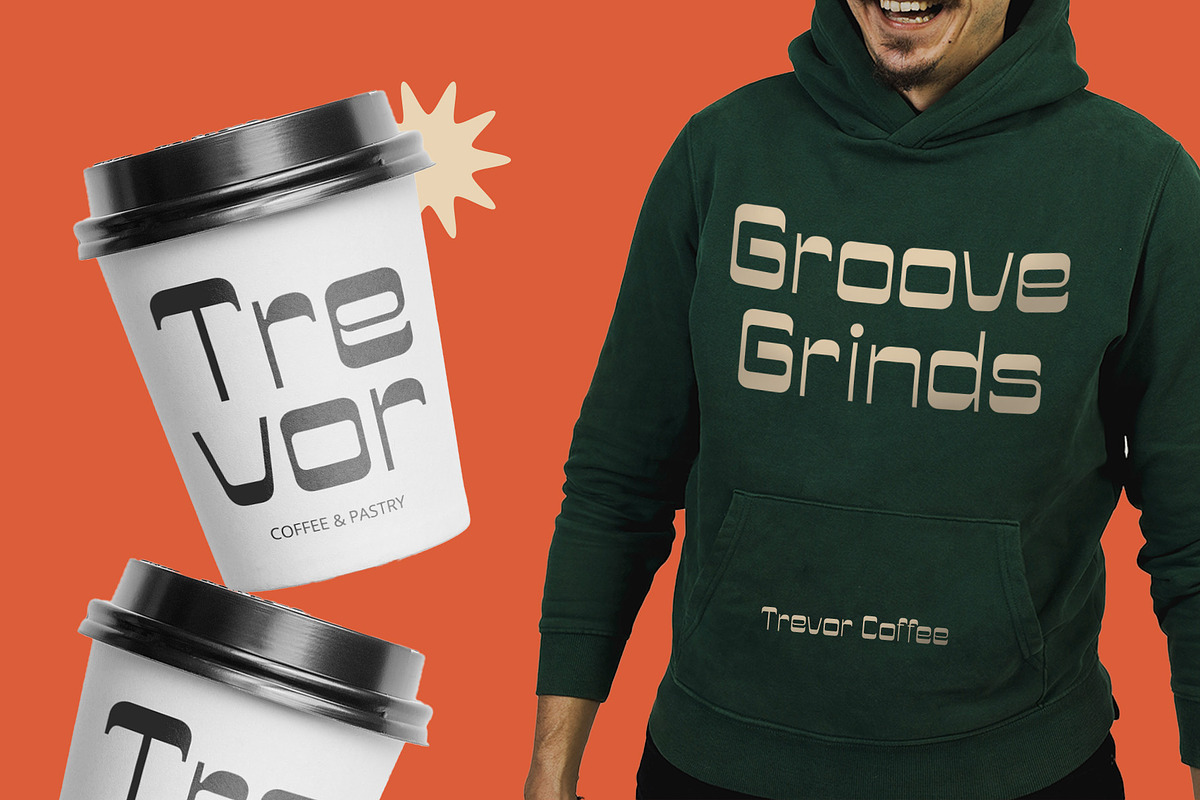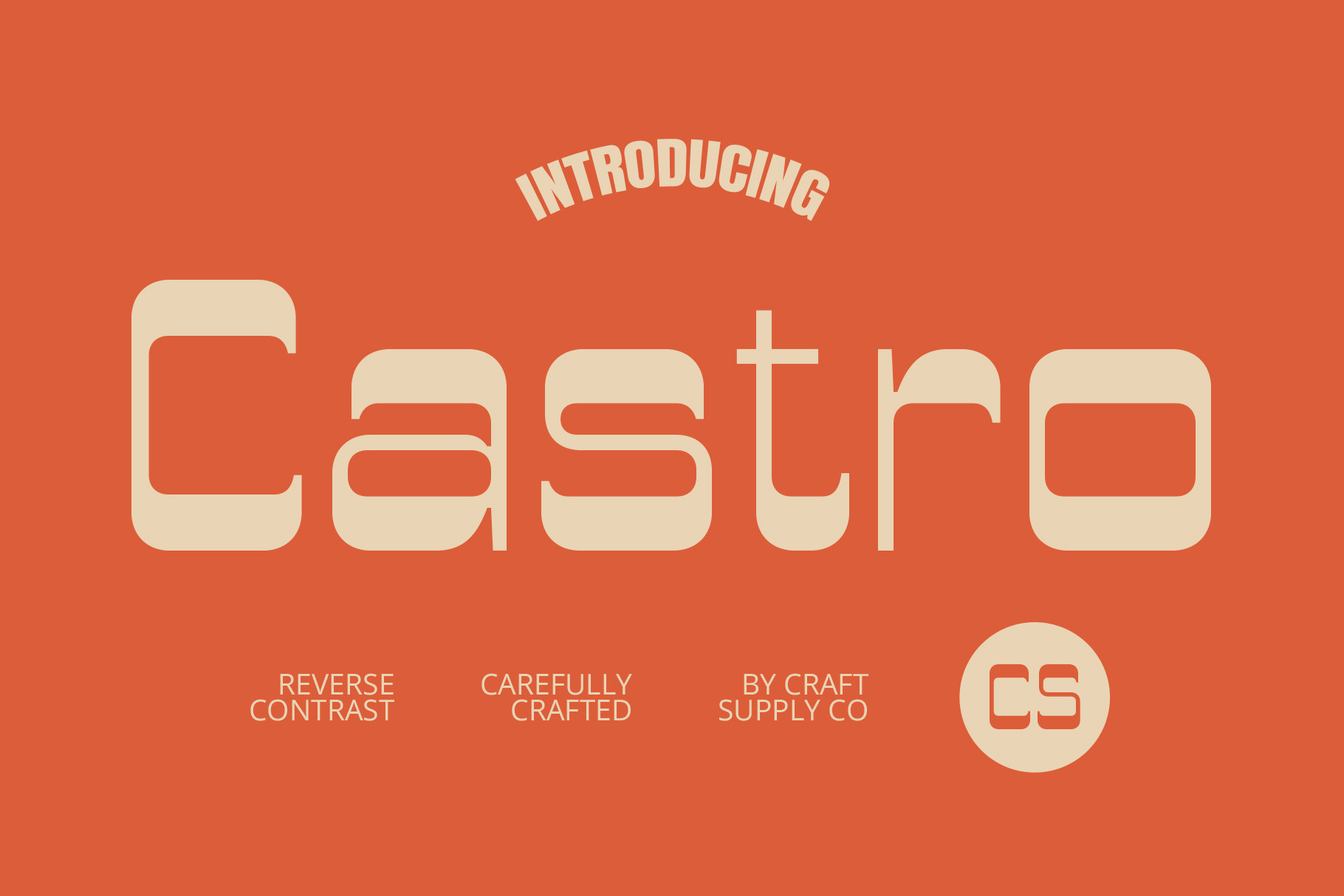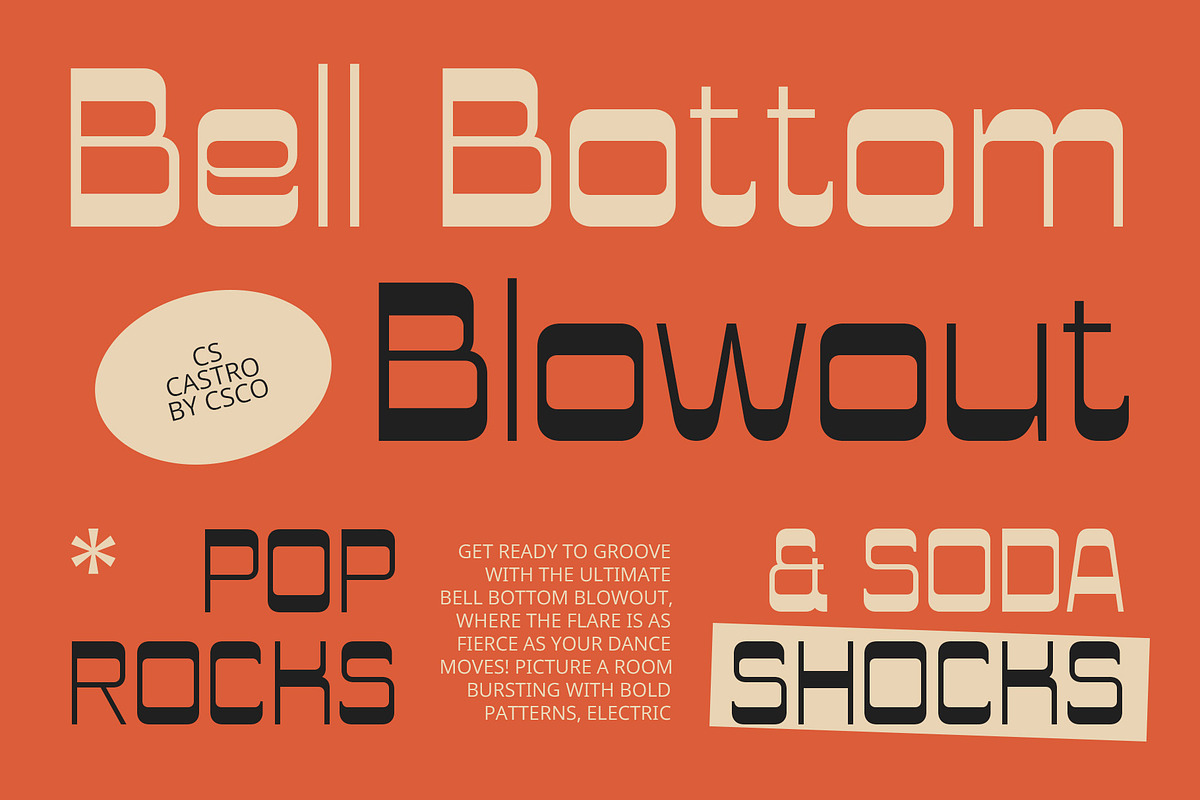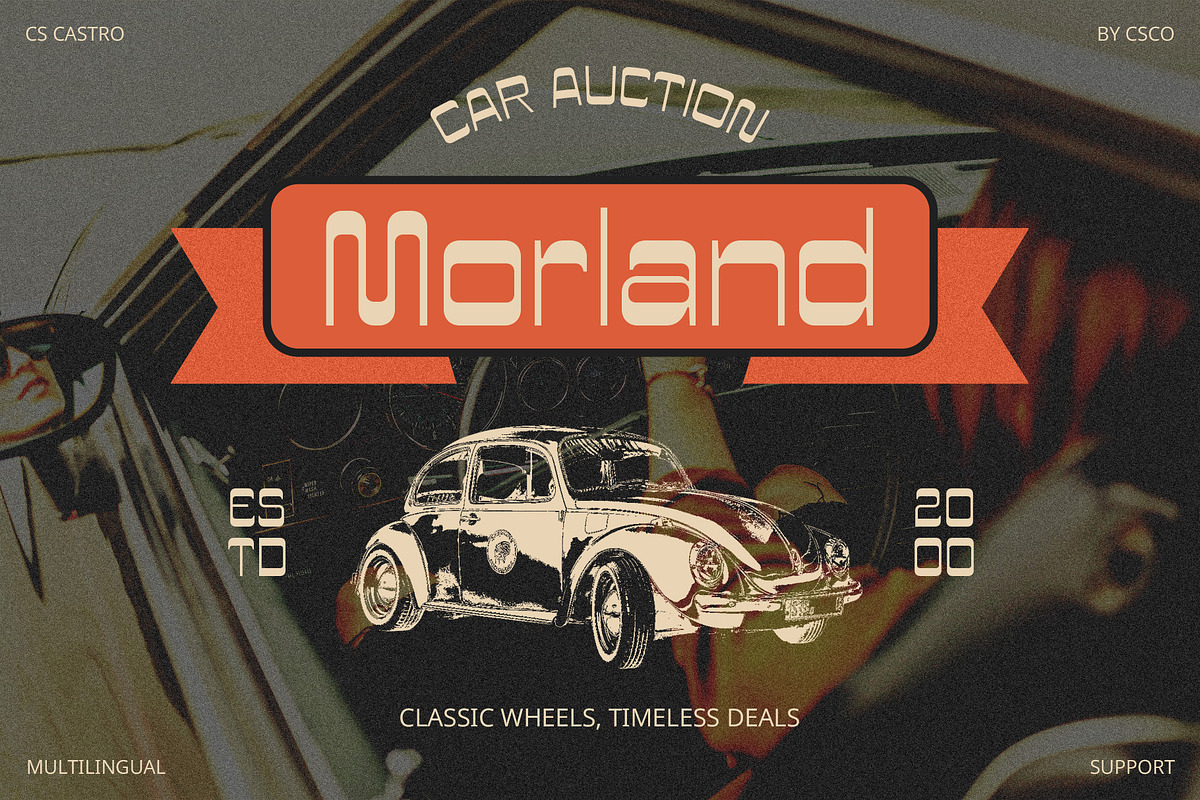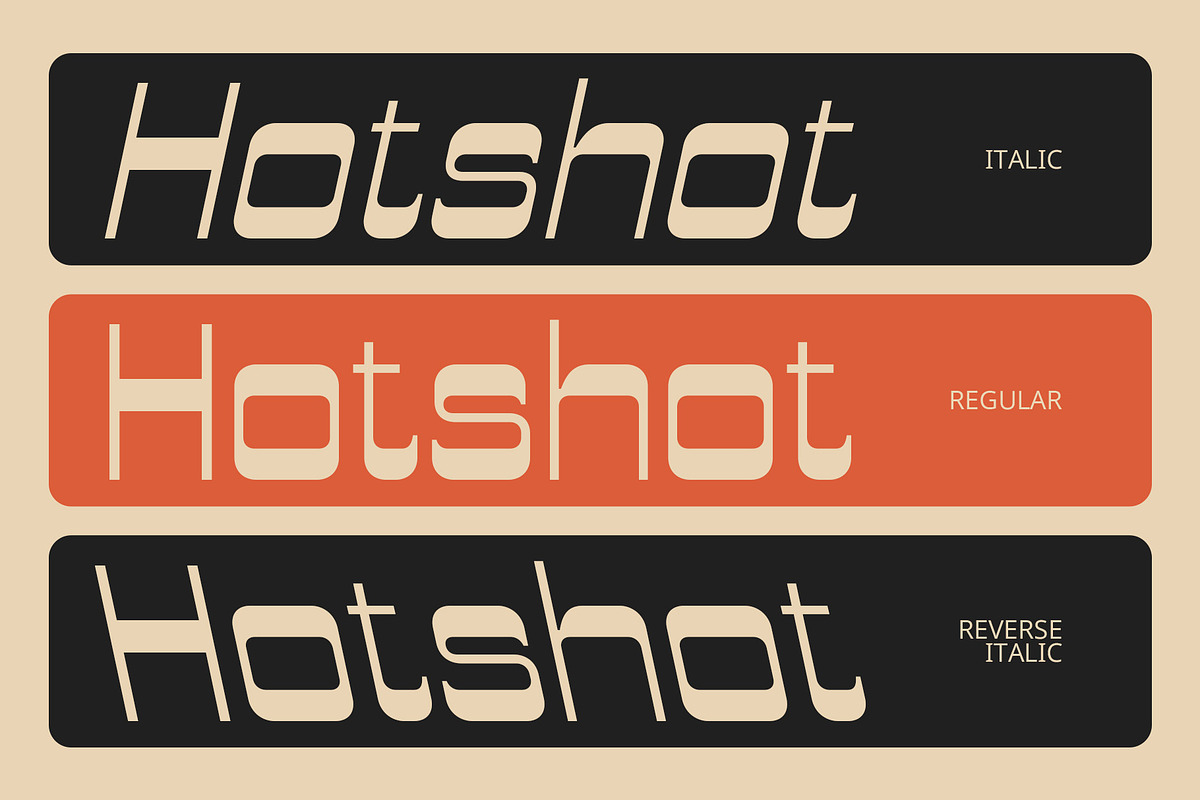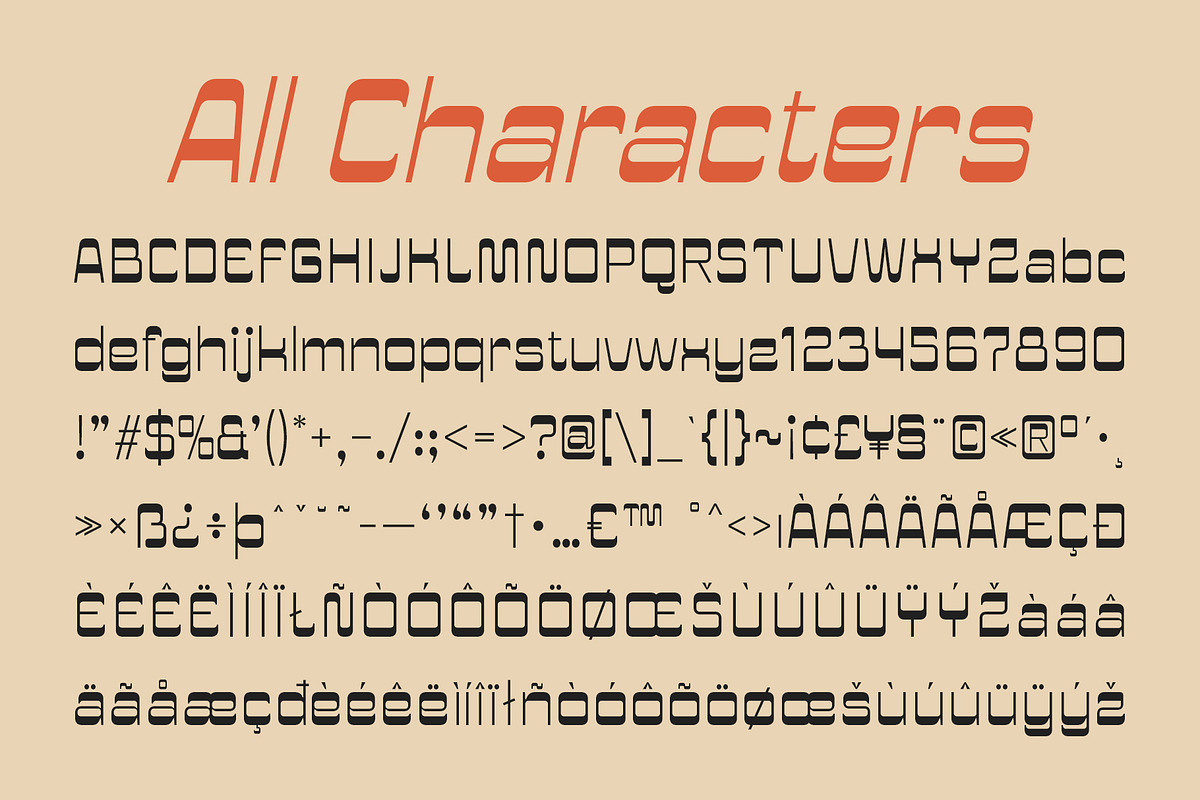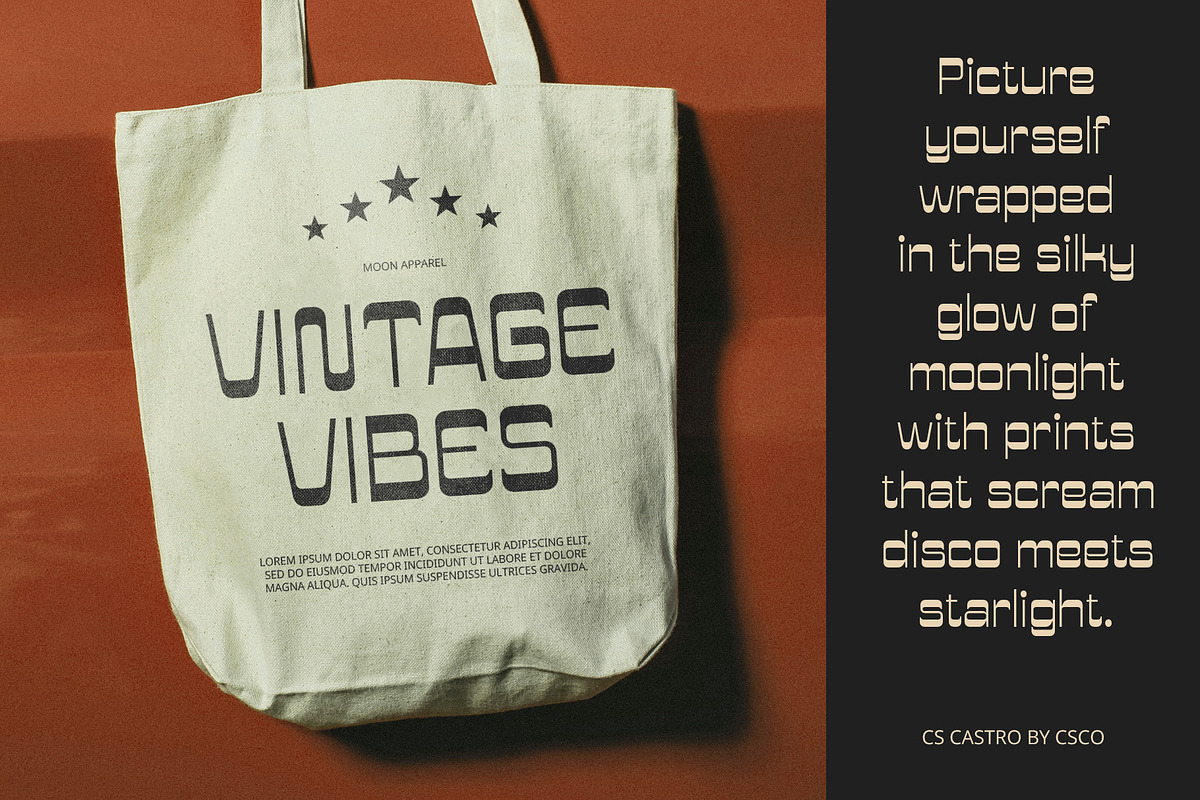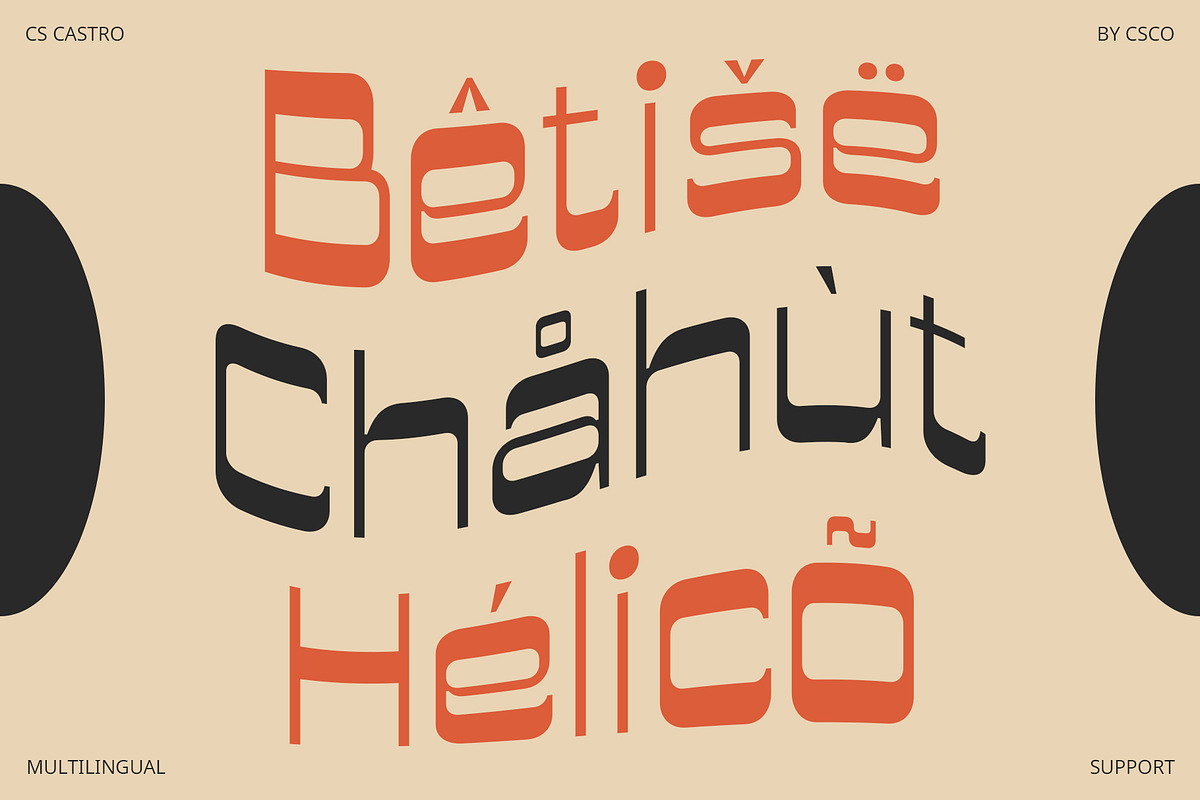
CS Castro – Reverse Contrast Font
CS Castro – Reverse Contrast Font: Unconventional Elegance with a Retro Edge
Sans-Serif with Reverse Contrast CS Castro is a sans-serif font that pairs modern design principles with a nostalgic twist through its reverse contrast feature. Unlike traditional fonts where the thick parts of the letters are heavier, CS Castro features thinner strokes in the usual thicker areas, creating a visually striking and unconventional effect. This reverse contrast design adds a unique flair, making the font stand out in any application.
Retro Vibe with a Modern Twist Infused with a classic retro feel, CS Castro draws inspiration from past decades’ graphics, bringing a vintage charm to contemporary designs. Its clean, minimalist sans-serif structure combined with reverse contrast offers a fresh take on traditional aesthetics. This retro influence is ideal for projects that seek to evoke a sense of nostalgia while maintaining a modern edge.
Perfect for Distinctive Branding and Promotion CS Castro excels in applications where a distinctive and memorable appearance is required. Whether you’re designing branding materials, posters, or promotional content, this font’s unique combination of reverse contrast and retro style ensures that your designs make a bold statement. Its characterful and eye-catching design makes it perfect for projects that aim to blend a nostalgic touch with a contemporary look, creating a standout impression in any context.
- CS Castro Regular
- CS Castro Italic
- CS Castro Reverse Italic